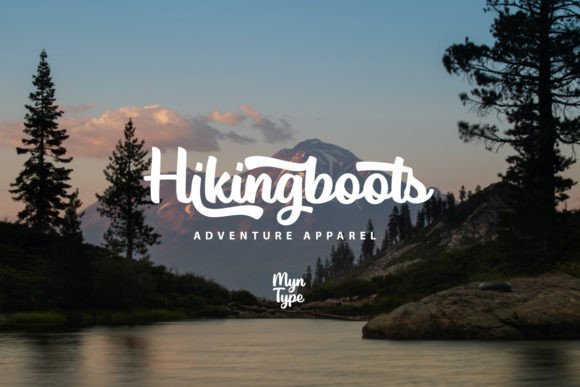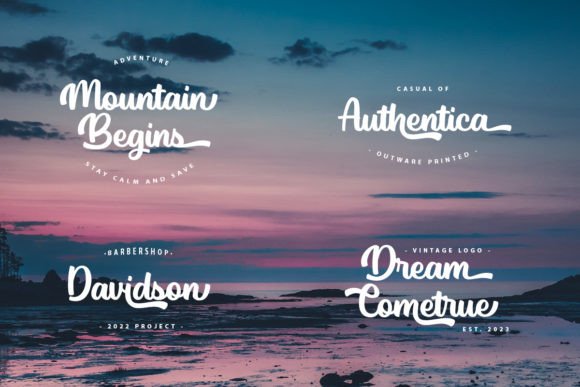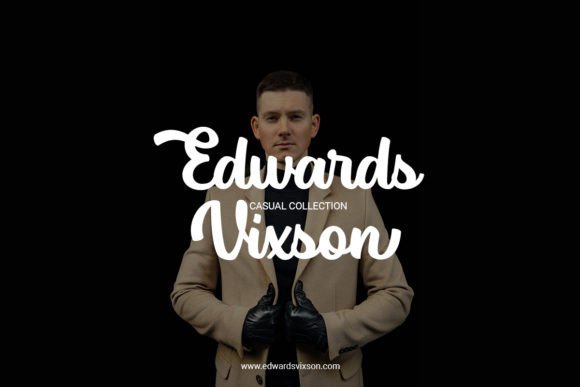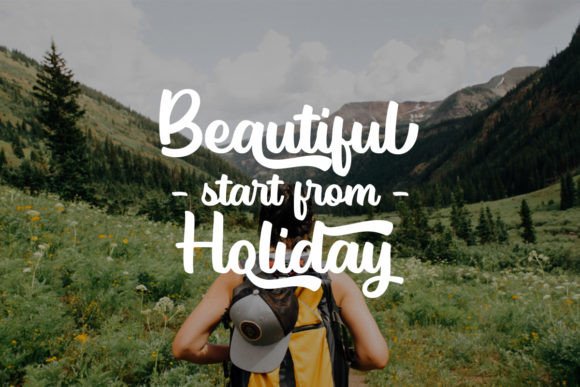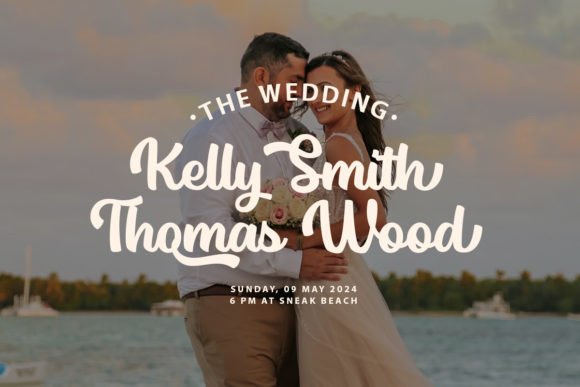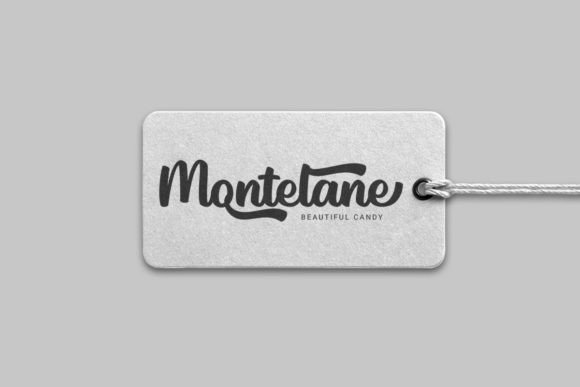
Discovering the Sweetest Font for Your Designs
Have you ever been inspired by a handwritten note from a loved one, or a beautiful wedding invitation that left you in awe? Those moments can spark a creative flame that drives us to create something special. For designers, finding the right font can be the key to unlocking that magic. In this article, we’ll explore a font that’s sure to make your designs shine – the Beautiful Candy Font.
This clean handwriting font is a masterpiece of elegance and simplicity, perfect for logos, branding, websites, magazines, and more. With its consistent, bold strokes and casual touch, the Beautiful Candy Font adds a personal touch to any design. Whether you’re a seasoned designer or just starting out, this versatile font is a valuable asset to have in your toolkit.
Key Features of Beautiful Candy Font
- Unique Characteristics: Elegant, cursive script with a touch of whimsy, perfect for adding a touch of sweetness to designs
Designer Review: Beautiful Candy Font
I was really excited to dive into Beautiful Candy Font, but my expectations were a mix of highs and lows.
- Clean and Modern Design: The font’s clean lines and modern aesthetic make it perfect for contemporary designs.
- Playful Touches: The subtle rounded edges and whimsical feel of the font make it ideal for projects that require a touch of personality.
- High-Quality Rendering: The font renders beautifully on various devices and platforms, ensuring a consistent look across different mediums.
- Limited Font Weight Options: The font only comes in a few weights, which can limit its versatility in certain design applications.
- Not Ideal for Body Text: The font’s playful feel makes it better suited for headlines and titles rather than body text, where readability is crucial.
Overall, Beautiful Candy Font is a great choice for designers looking for a modern, playful font to add some personality to their projects. While it may not be the most versatile font, its strengths make it a solid addition to any design toolkit.
Some common use cases for the Beautiful Candy Font include:
– Creating eye-catching headlines and titles.
– Designing sweet treats and desserts.
– Adding a playful touch to wedding invitations and party decorations.
For maximum effect, use the Beautiful Candy Font in combination with bright, pastel colors and playful graphics.
Alternatives to Beautiful Candy Font for Designers
Great Vibes is a beautiful, cursive script font that is perfect for creating a whimsical and playful atmosphere. It is ideal for use in titles, headings, and other design elements where a touch of elegance is required.
Compared to Beautiful Candy Font, Great Vibes has a more refined and sophisticated look, making it suitable for a wider range of design applications.
Cream Soda is a fun and playful font that is reminiscent of classic carnival signage. It is perfect for use in designs that require a touch of nostalgia and whimsy.
Compared to Beautiful Candy Font, Cream Soda has a more casual and laid-back feel, making it ideal for use in designs that require a relaxed and informal tone.